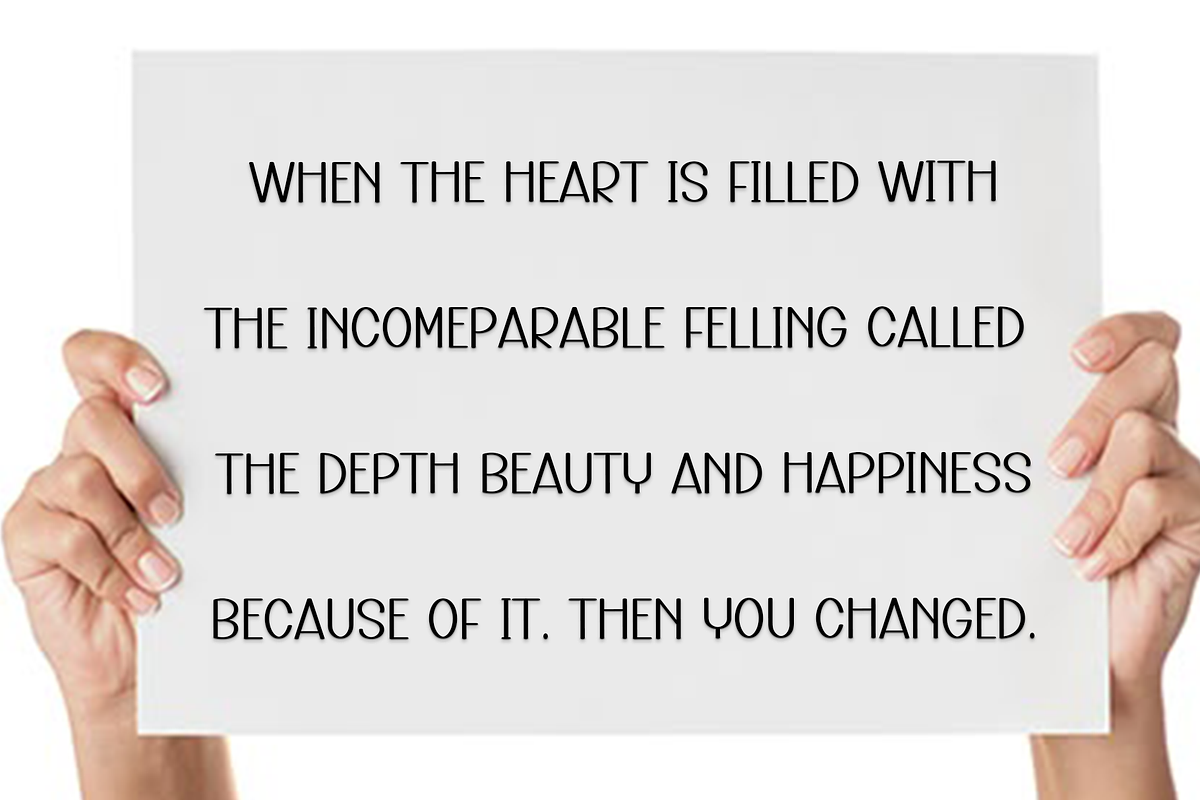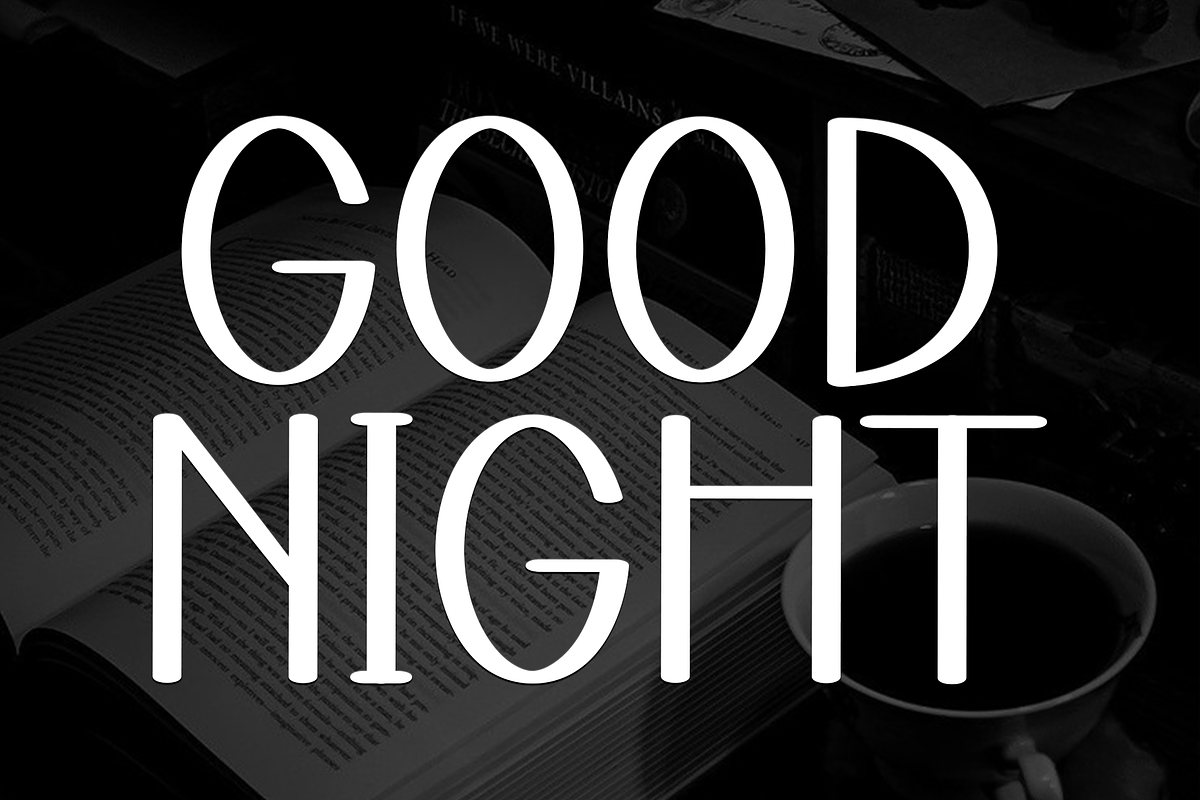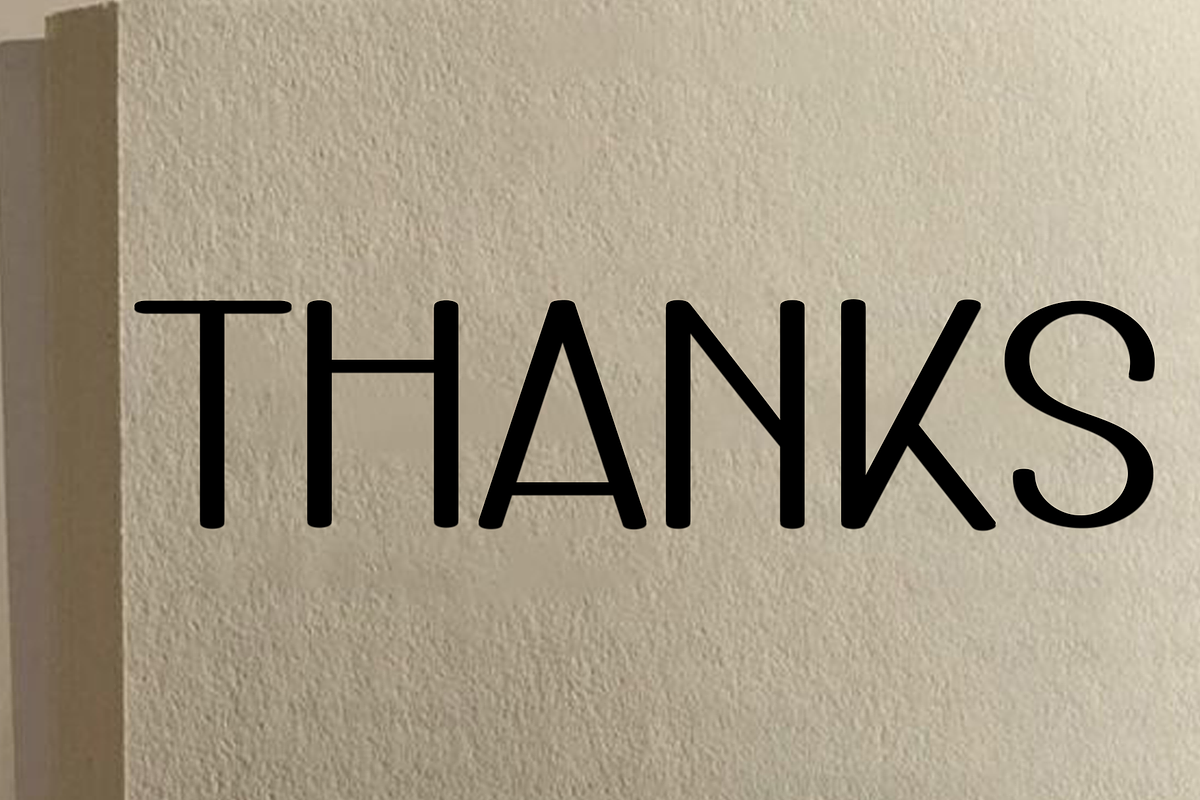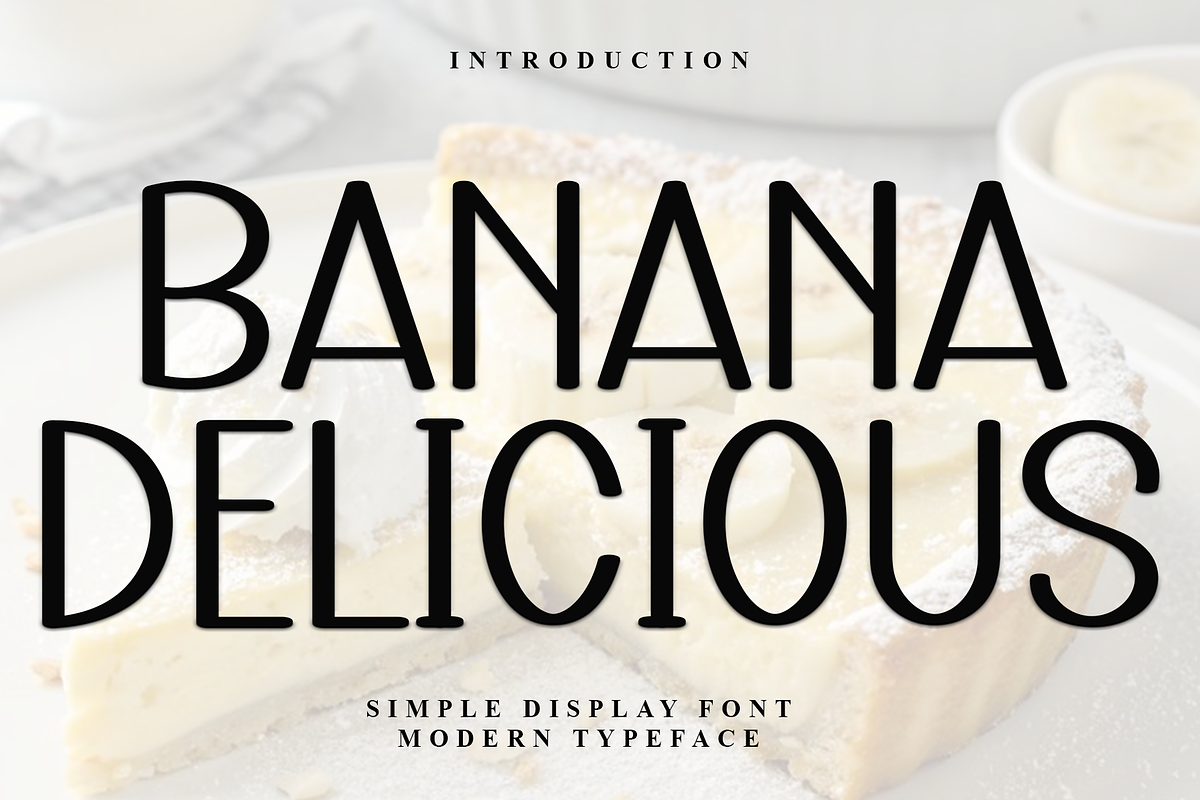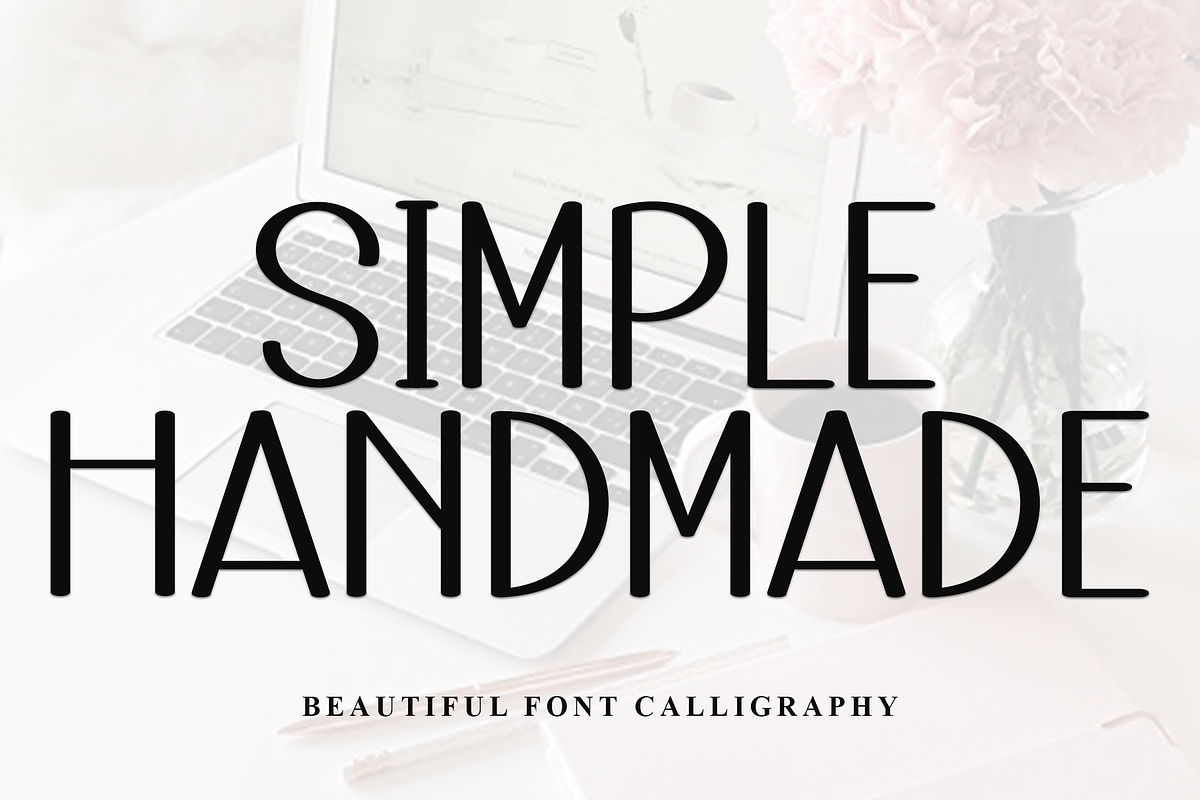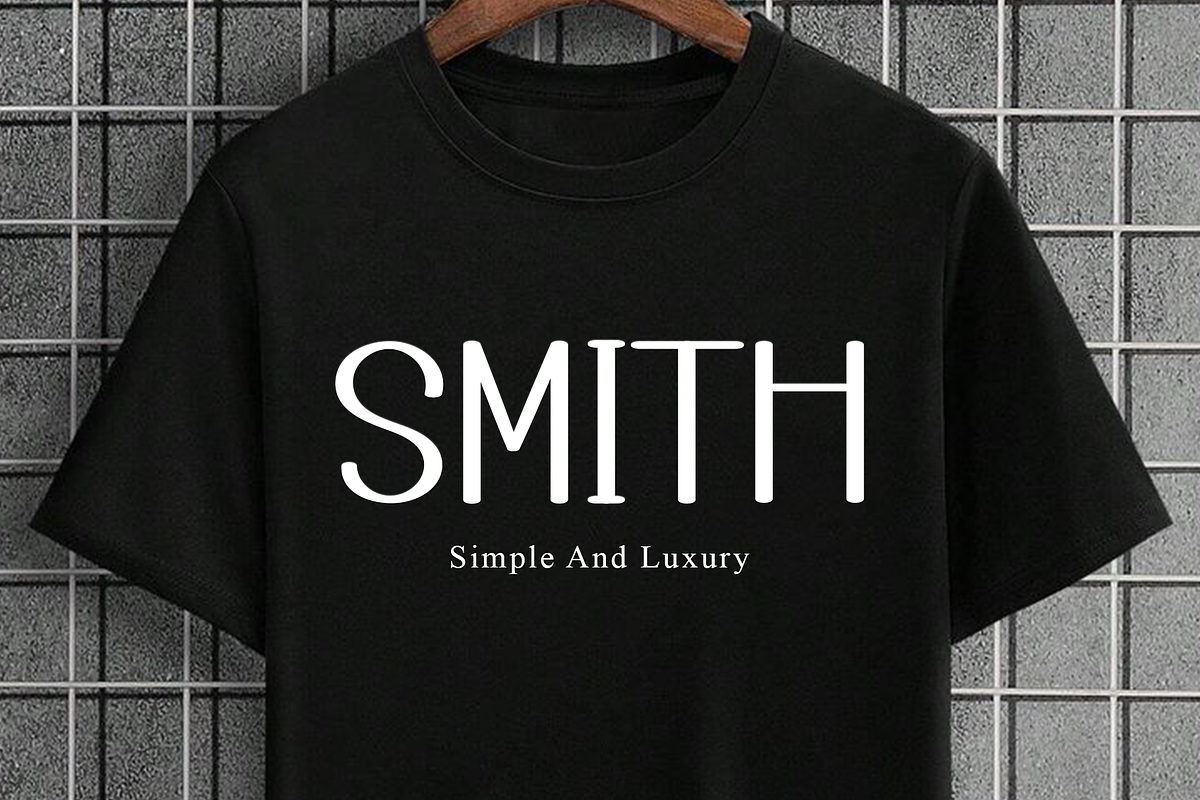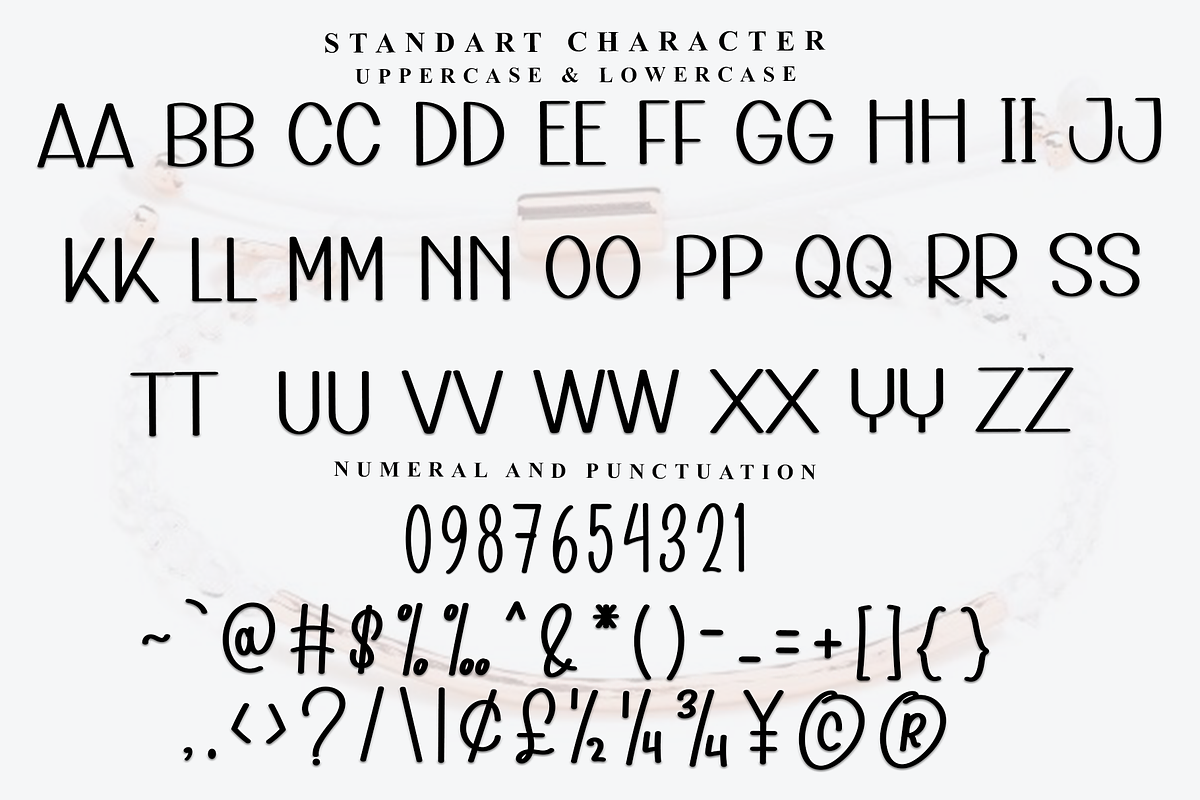
Banana Delicious
Banana Delicious is a beautiful and eye-catching font designed with a soft, unique touch. Its distinctive strokes give it a special character, making it meaningful and versatile for future use. With various characters, it’s perfect for design projects, crafts, and other creative works.